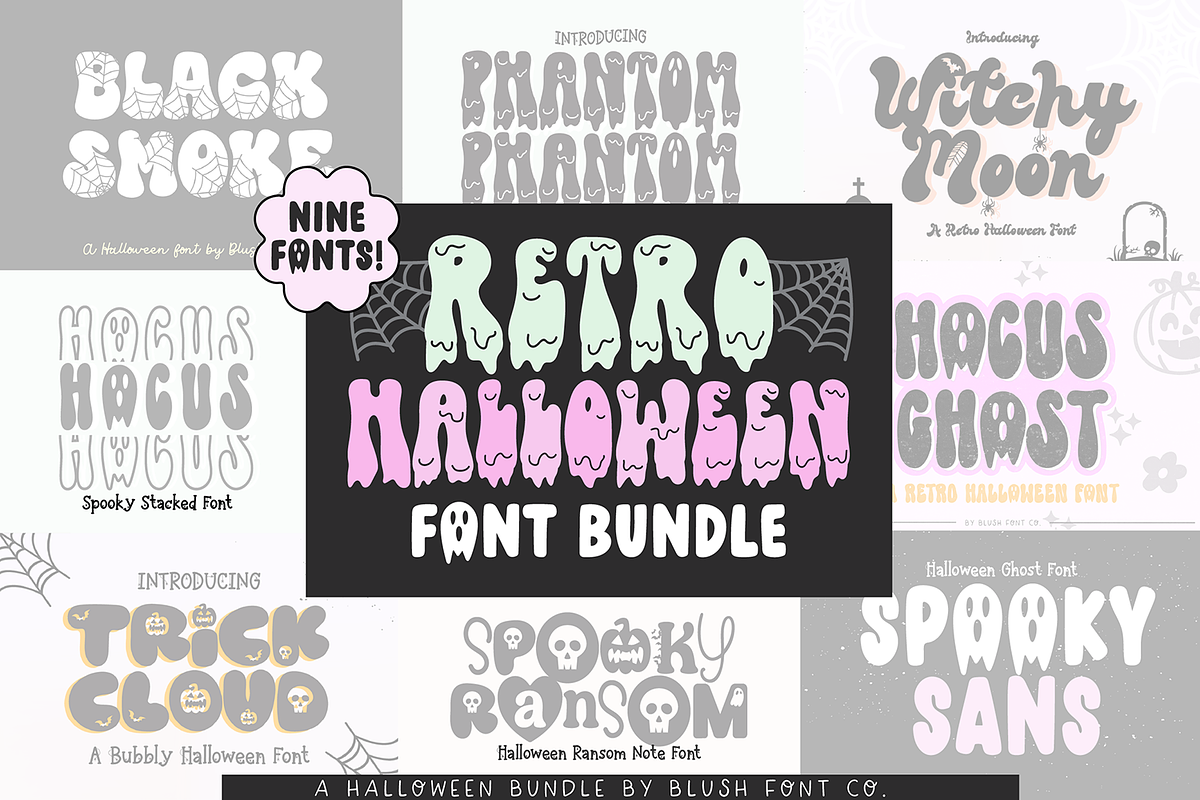
RETRO HALLOWEEN FONT BUNDLE V1 Free Download is a spooky-chic collection of vintage-inspired typefaces perfect for all your Halloween-themed creations. Packed with creepy, playful, and nostalgic fonts, this bundle is ideal for party invitations, haunted house flyers, Halloween merch, packaging, and more. It captures that retro horror vibe with a stylish twist, making it a must-have for seasonal designers.
Using the RETRO HALLOWEEN FONT BUNDLE V1 Free Download, you'll get instant access to a variety of fonts that bring eerie elegance and old-school charm to your designs. Whether you're going for cute-and-creepy or full-on fright night, this bundle has the perfect typeface to match the mood.